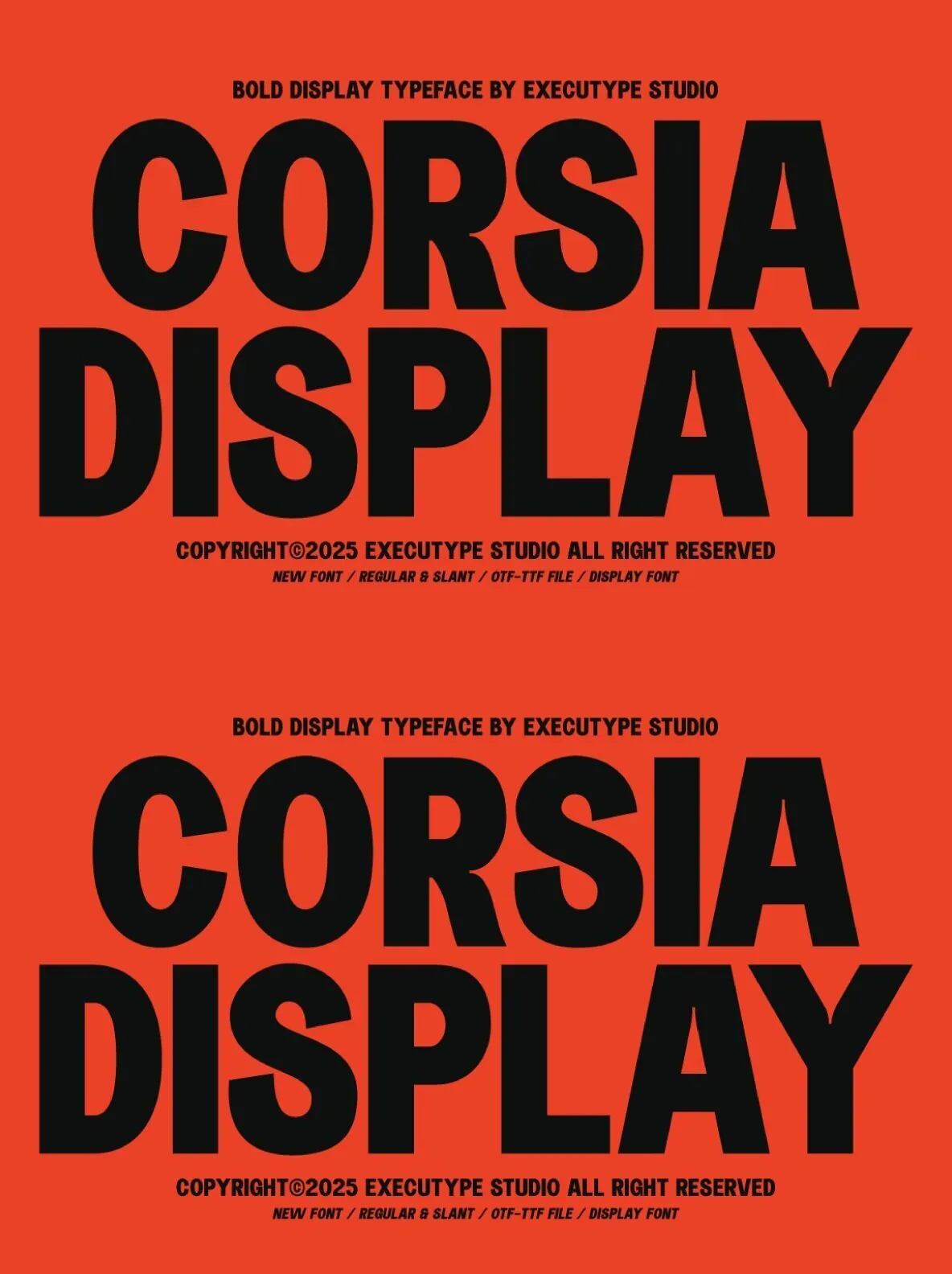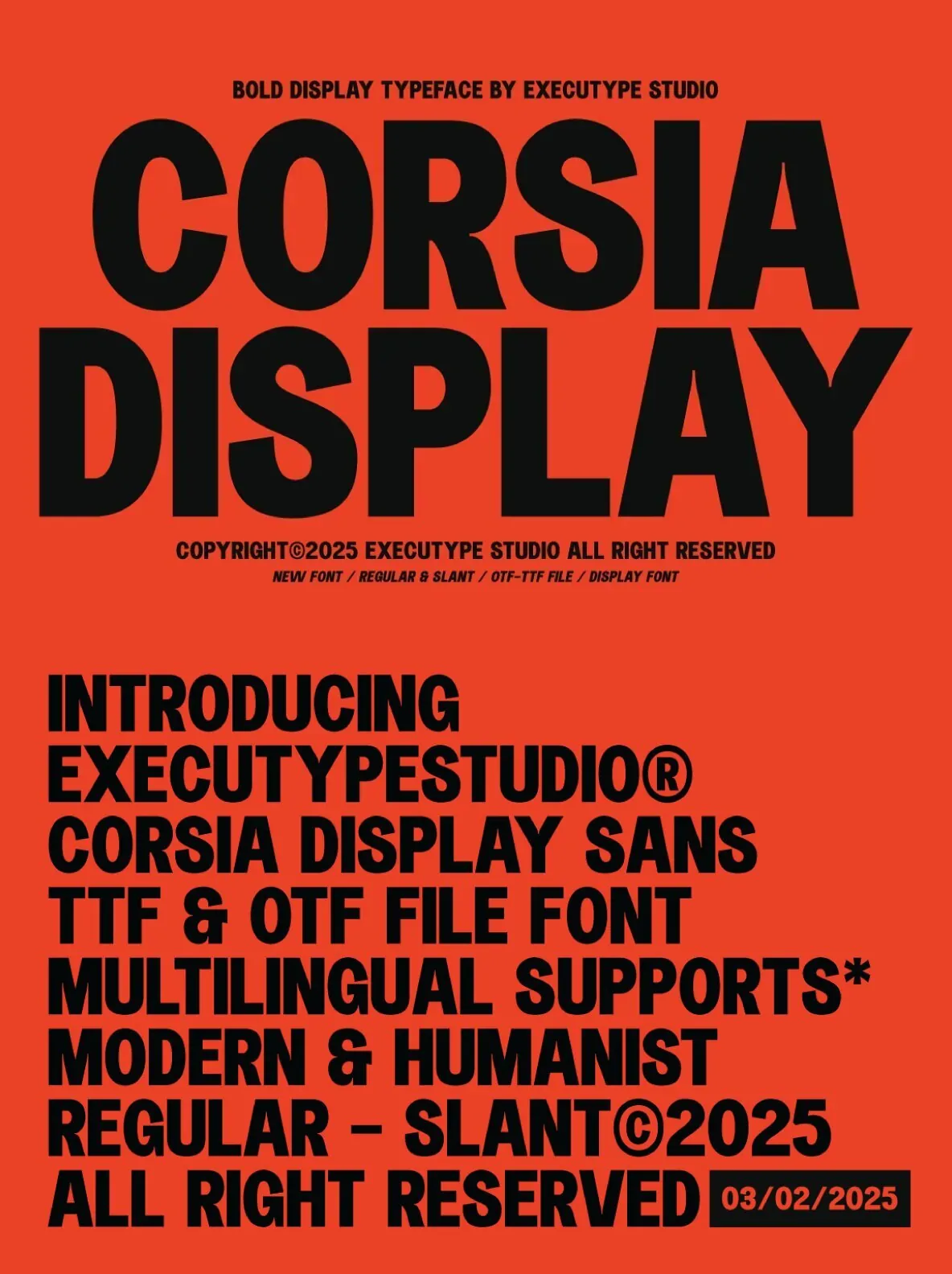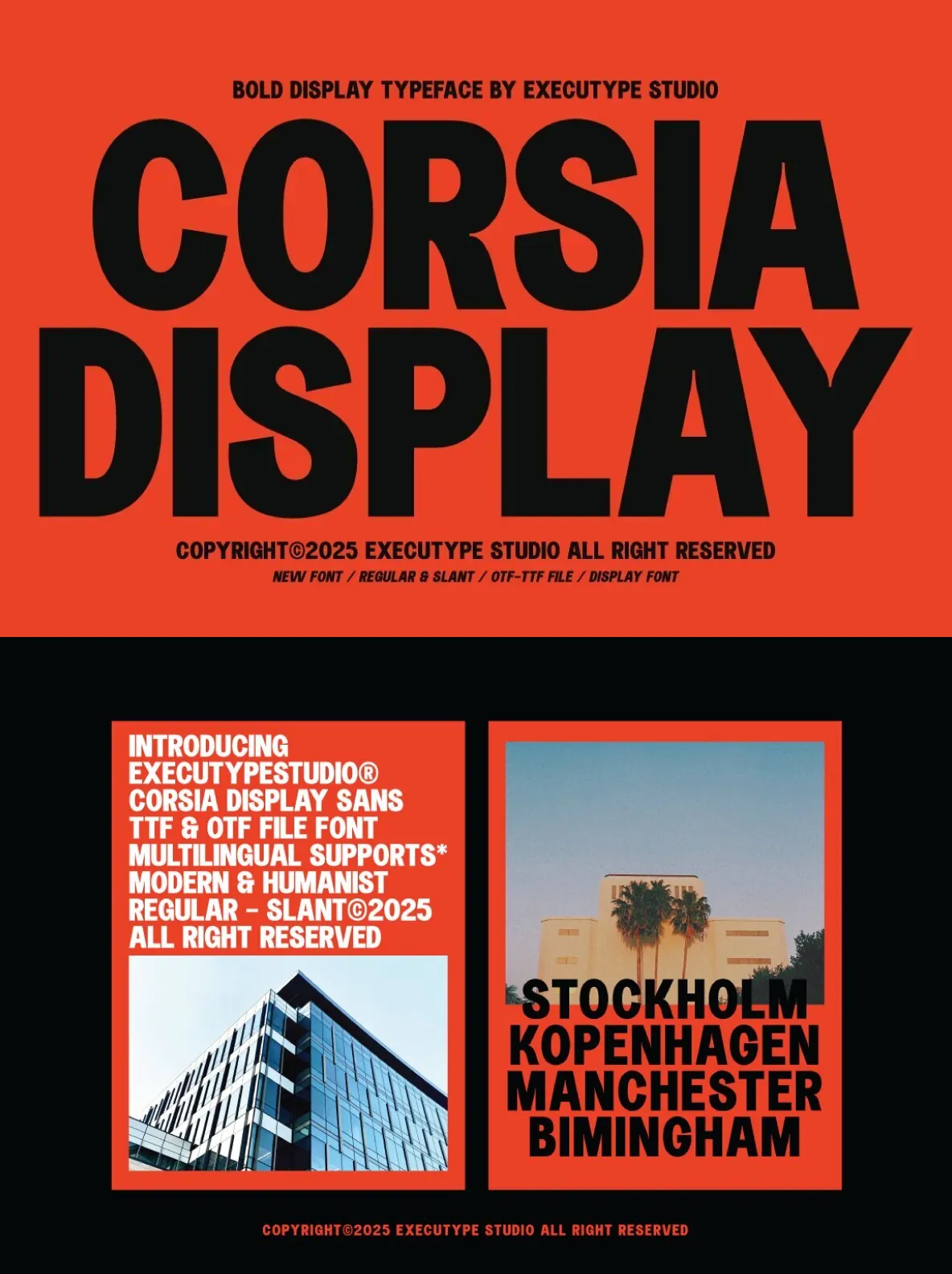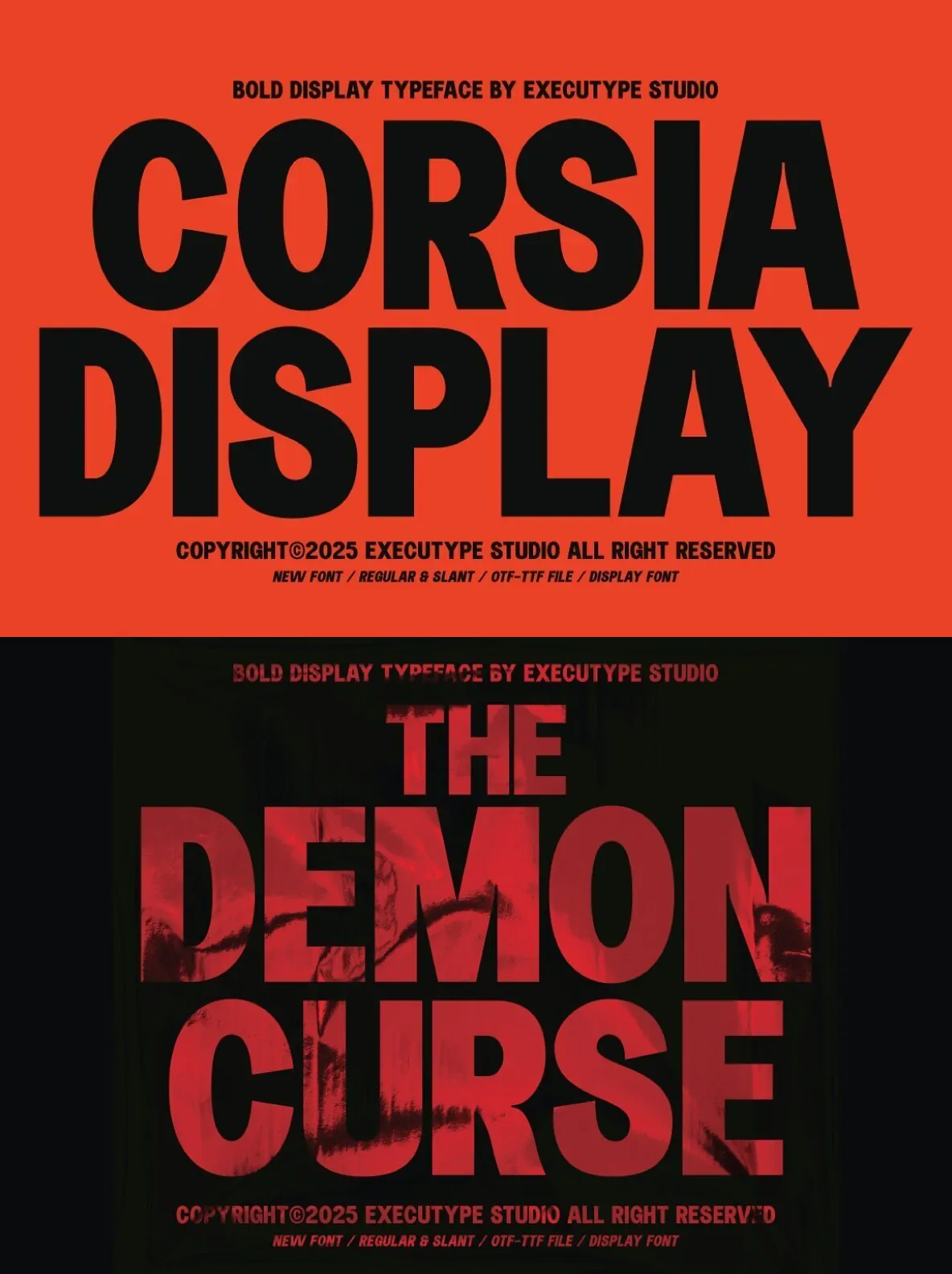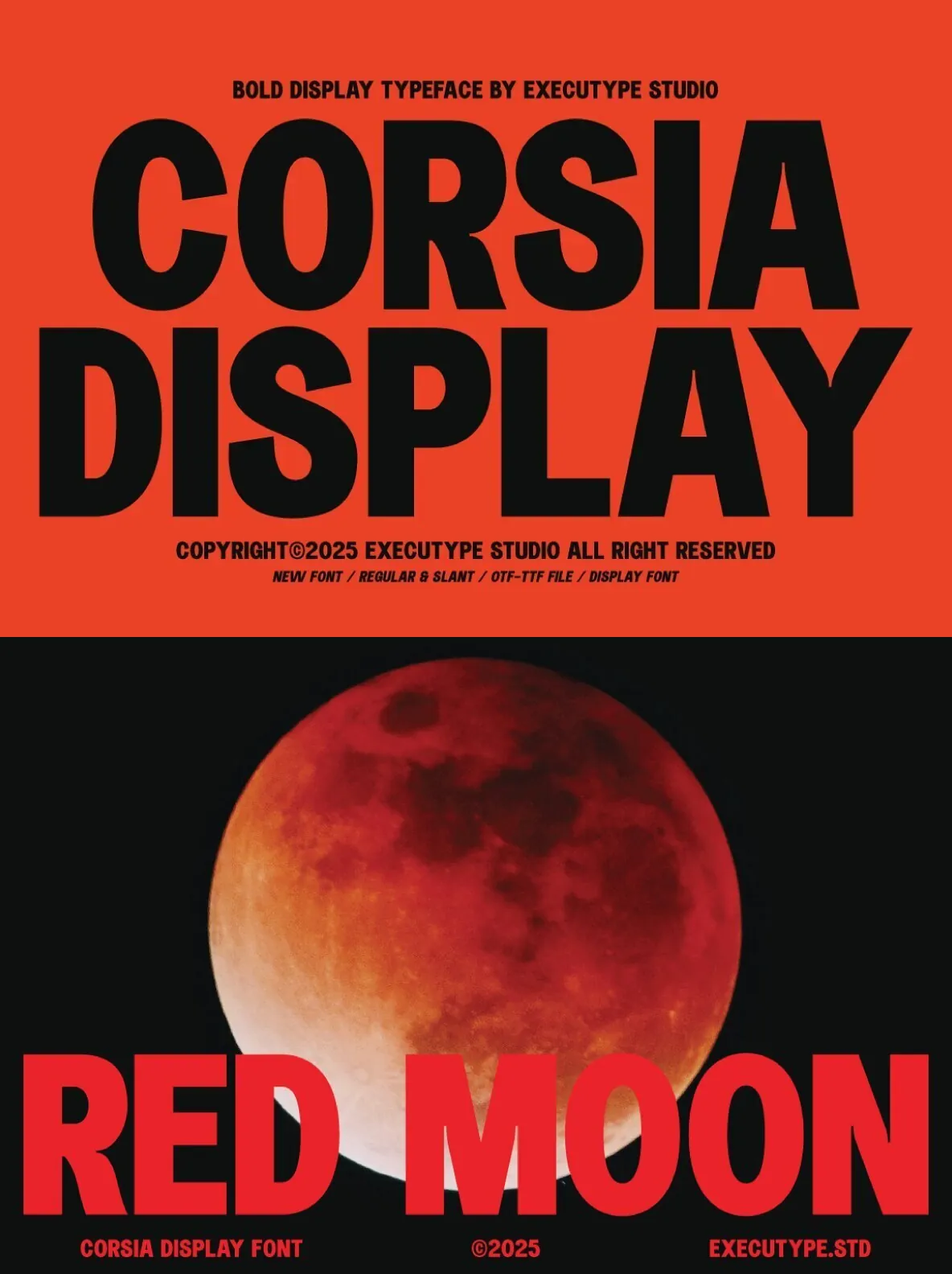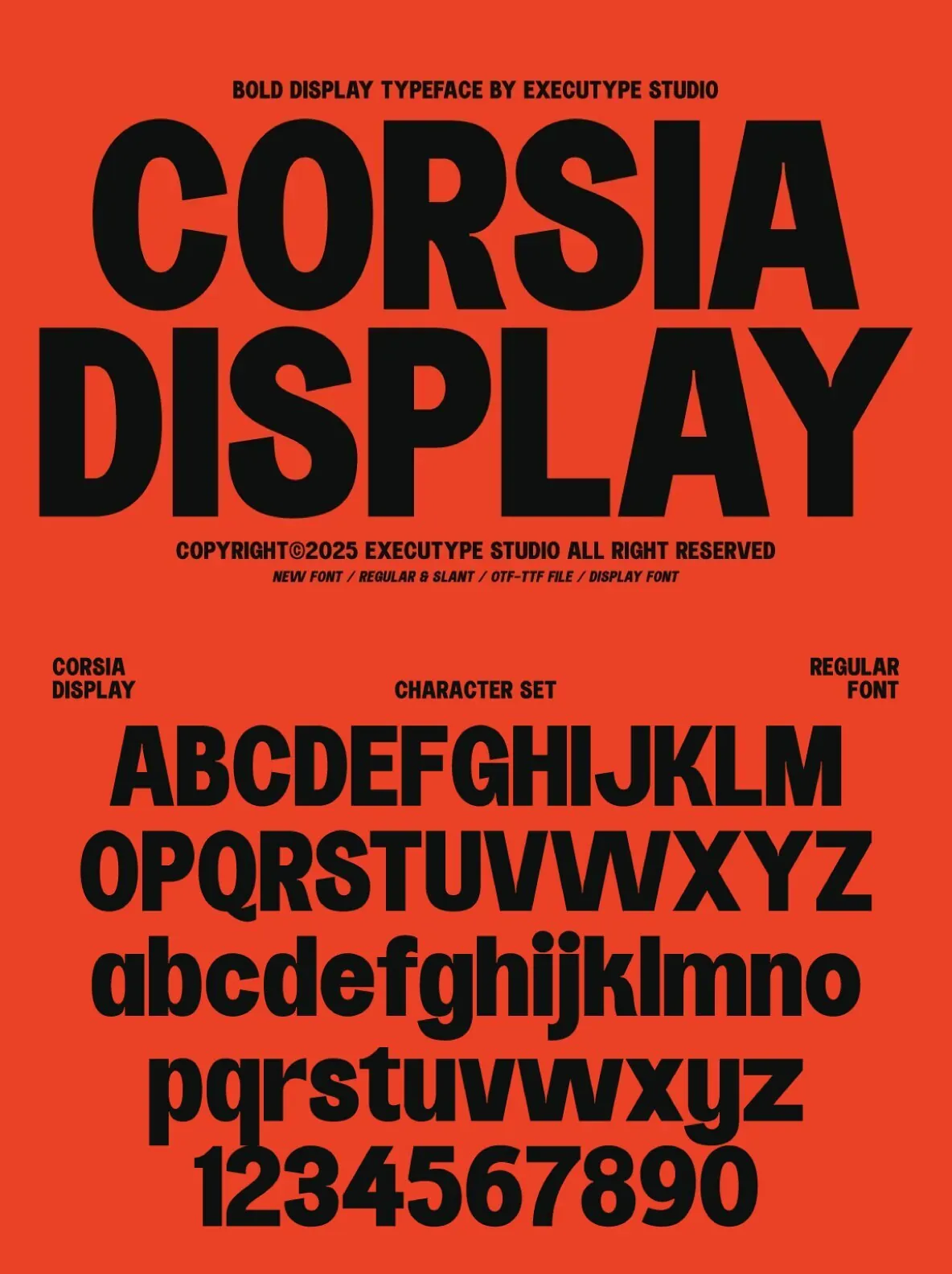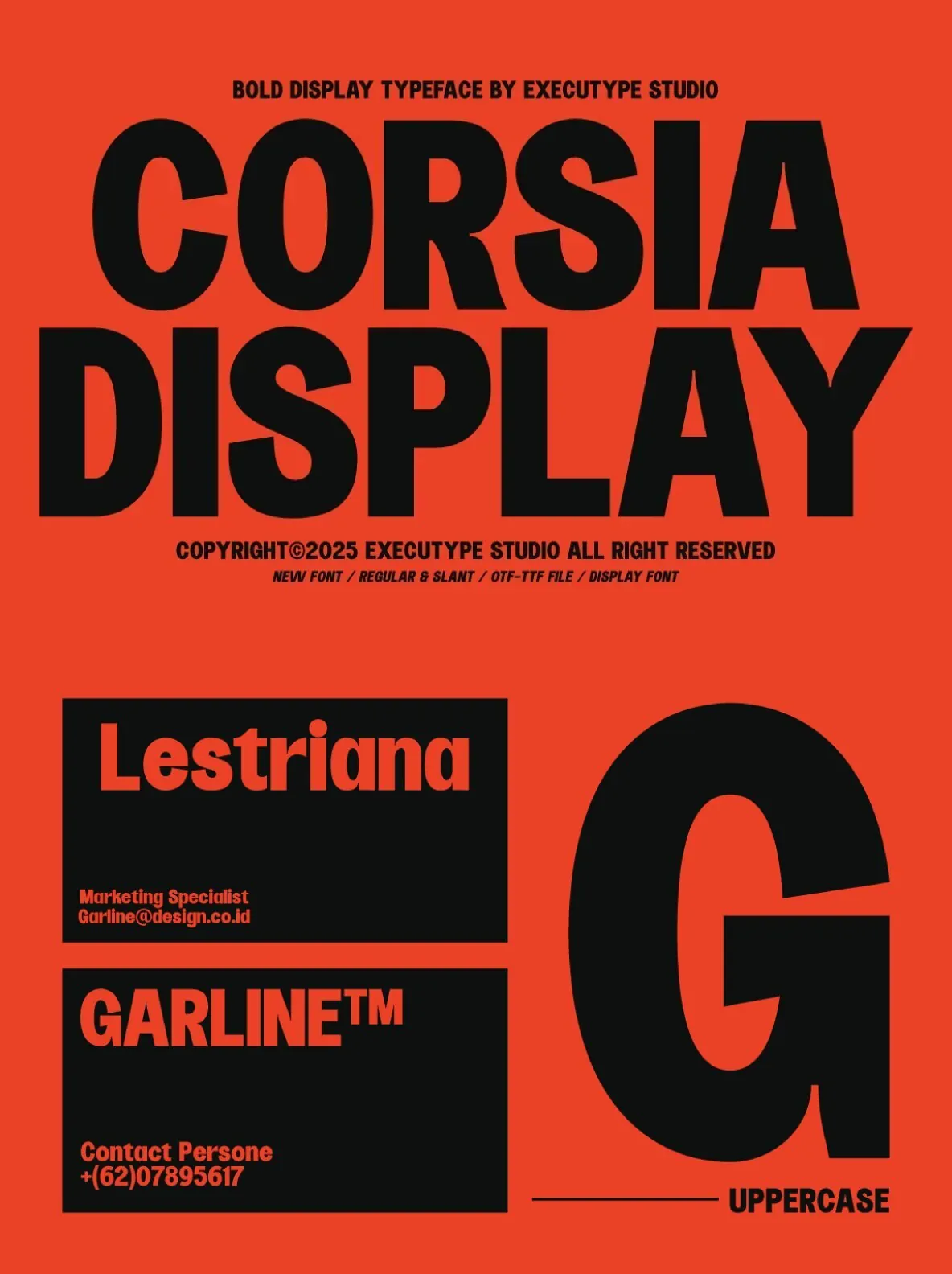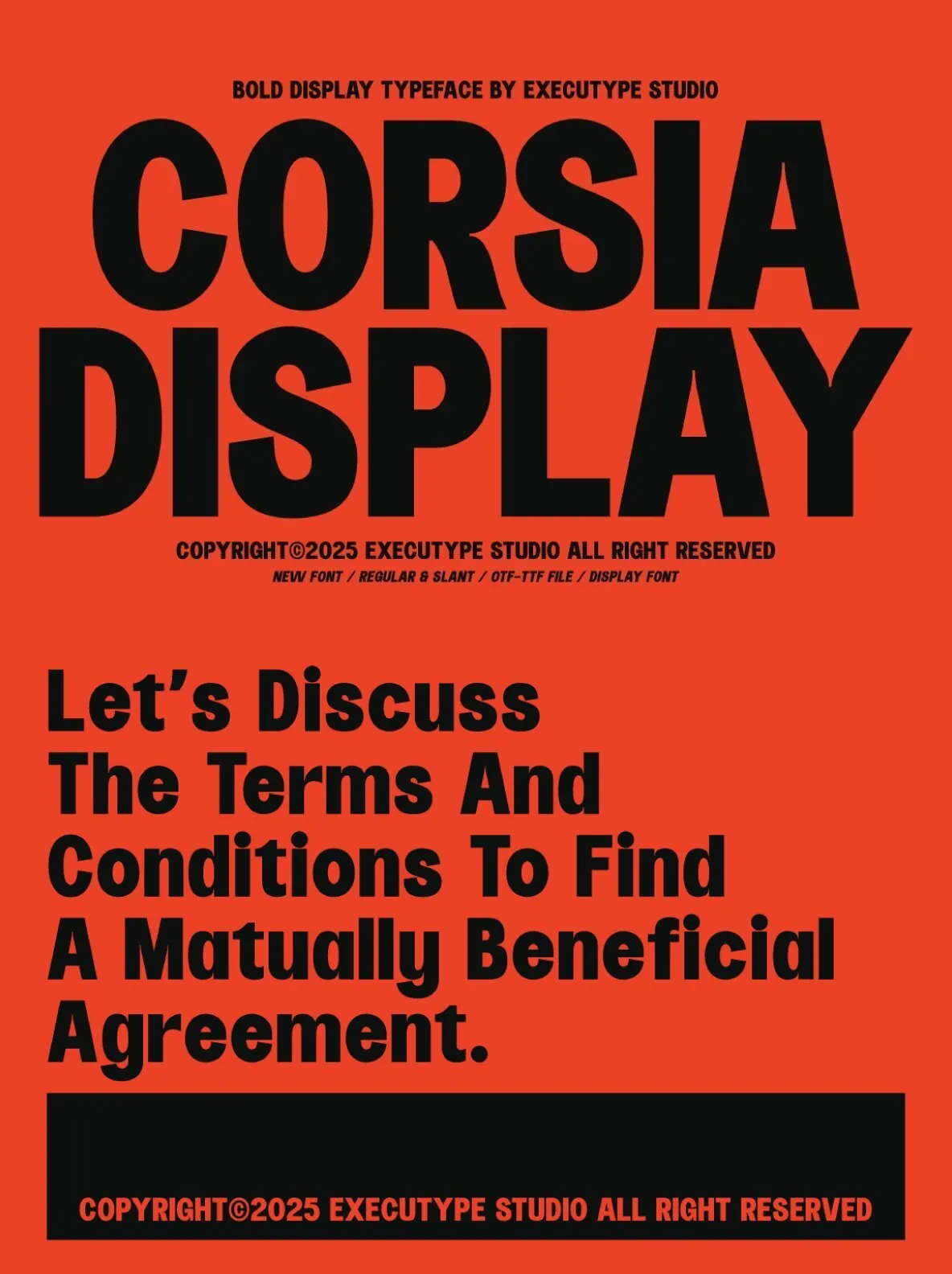
Corsia Display: Bold Condensed Typeface for Standout Headlines
Corsia Display offers a bold, narrow design that commands attention in headlines and display work. With a balance of modern impact and retro sensibility, it fits seamlessly into projects seeking both clarity and personality. The font’s distinct condensed structure supports readability at large sizes, making it particularly suited for branding, editorial, and poster applications.
With over 350 glyphs, Corsia Display provides designers with versatile options for creative expression. OpenType features include a broad range of alternative characters, such as swashes, stylistic sets, alternates, and specialized ligatures. These features can be accessed in most professional design programs, enabling fine typographic adjustments. The font’s PUA Unicode compatibility ensures easy access to alternate characters for detailed design work.
Regular and Slant styles
Uppercase and lowercase characters
International language and symbol support
Punctuation and numerals
Standard and discretionary ligatures
Stylistic alternates and sets